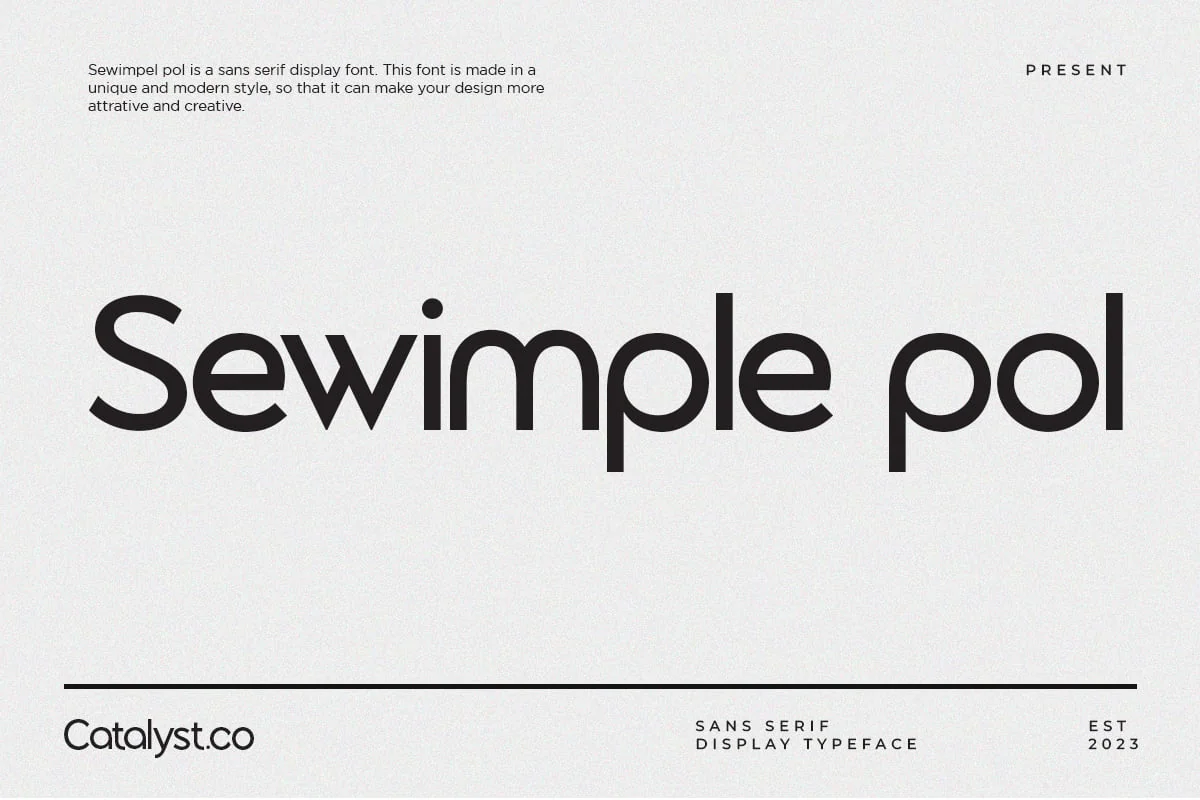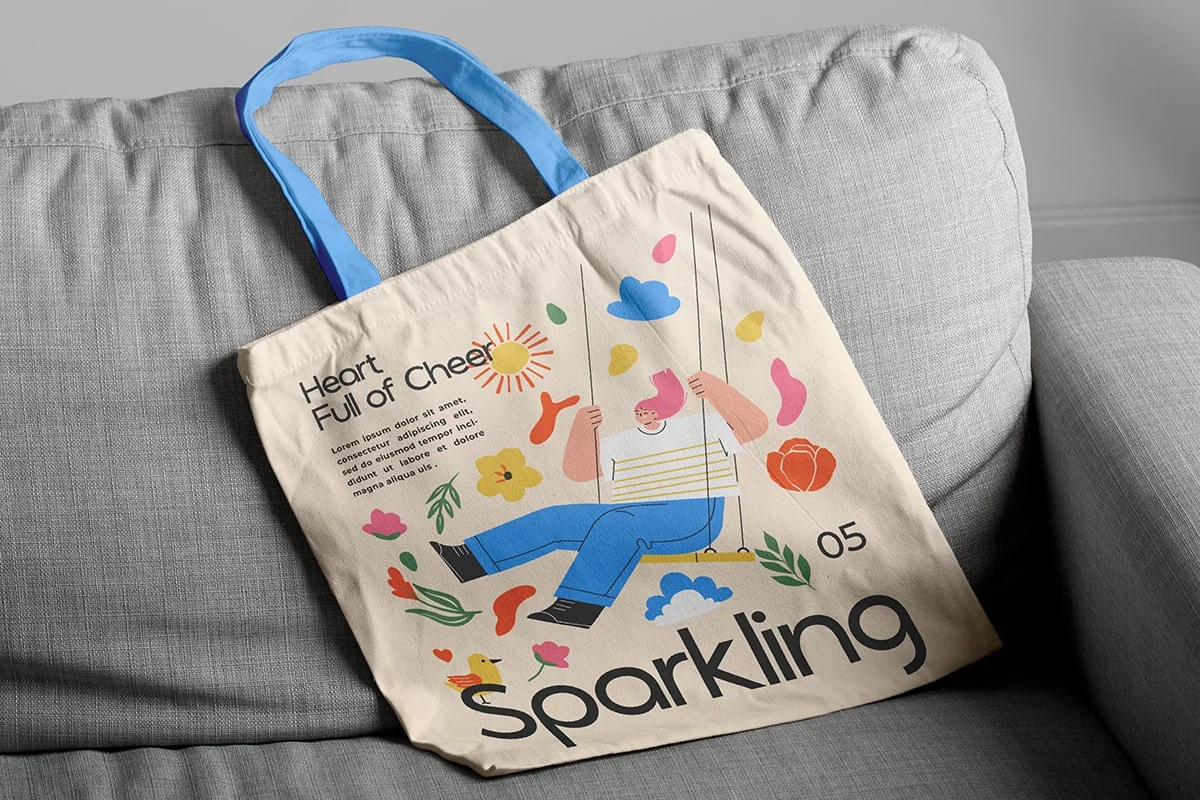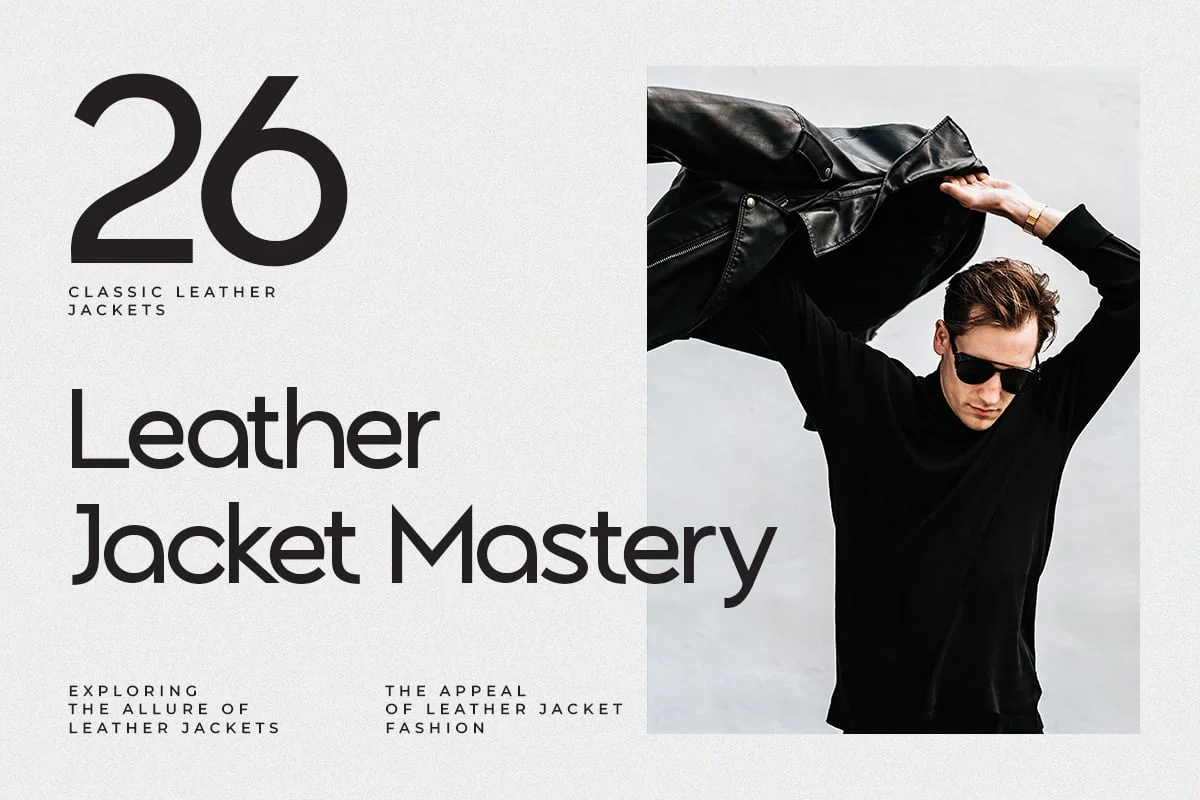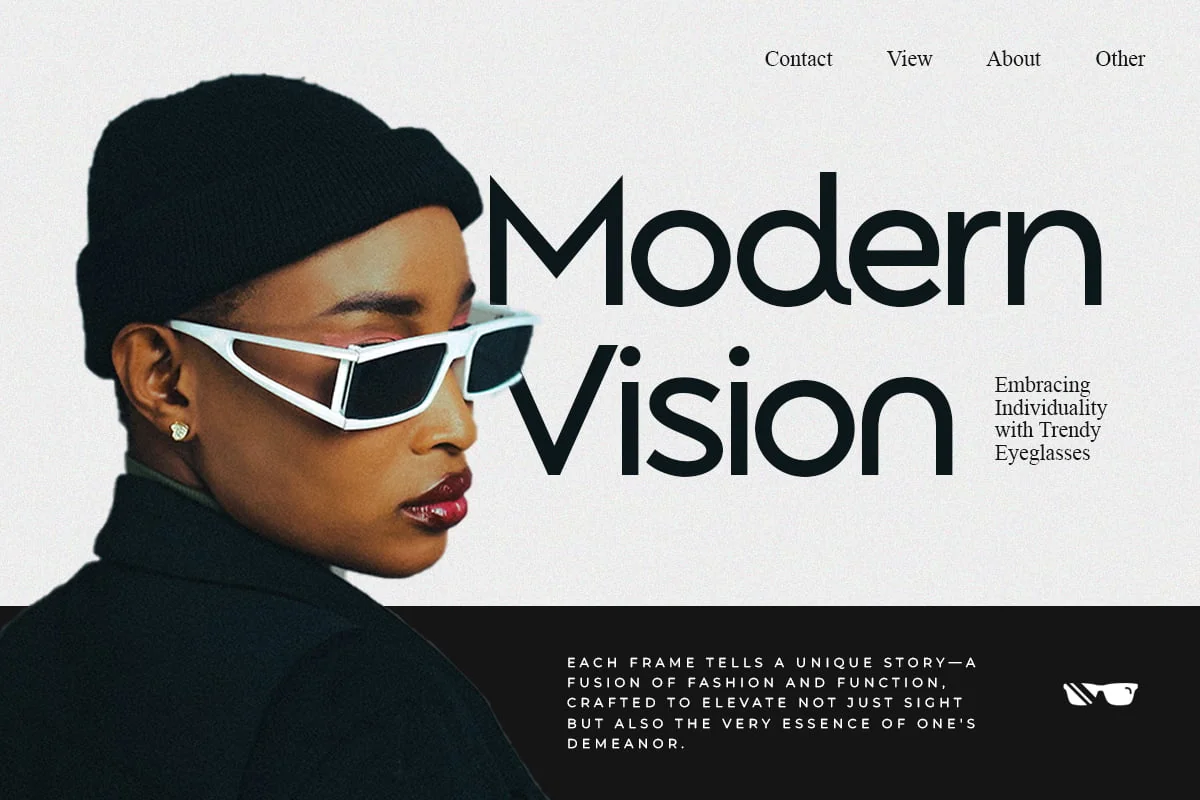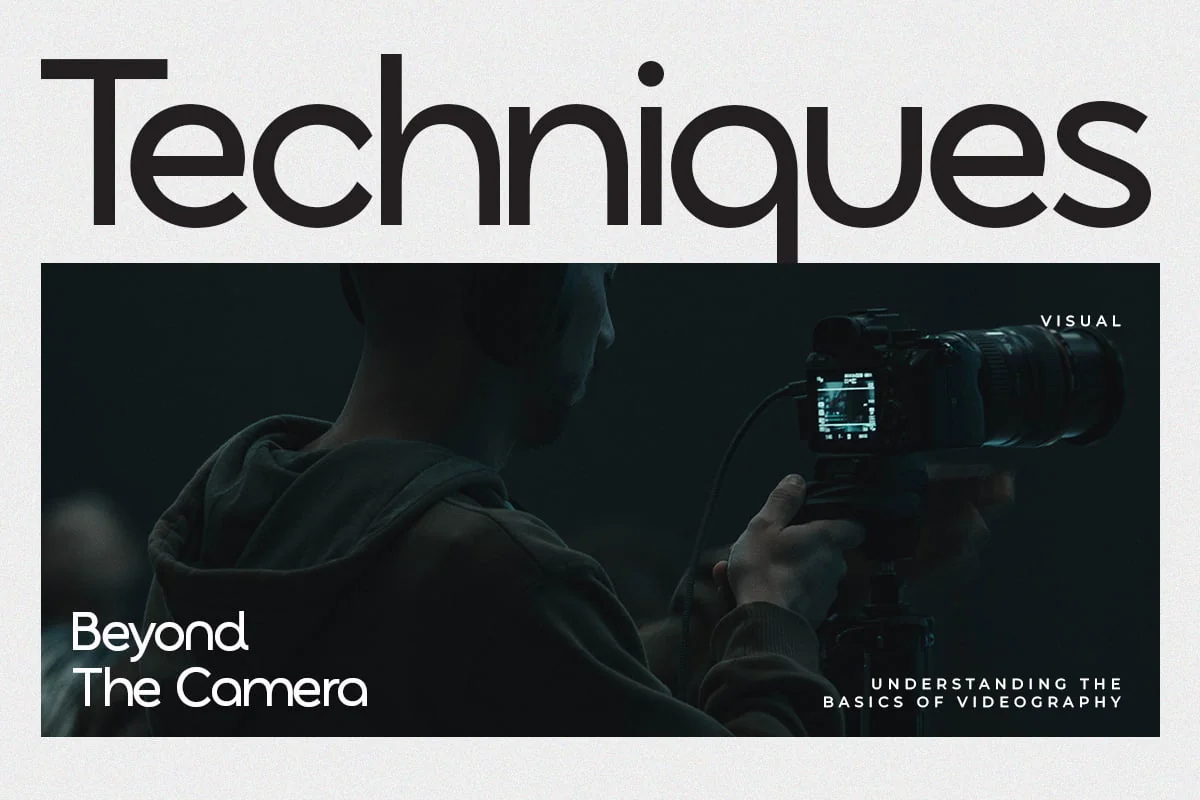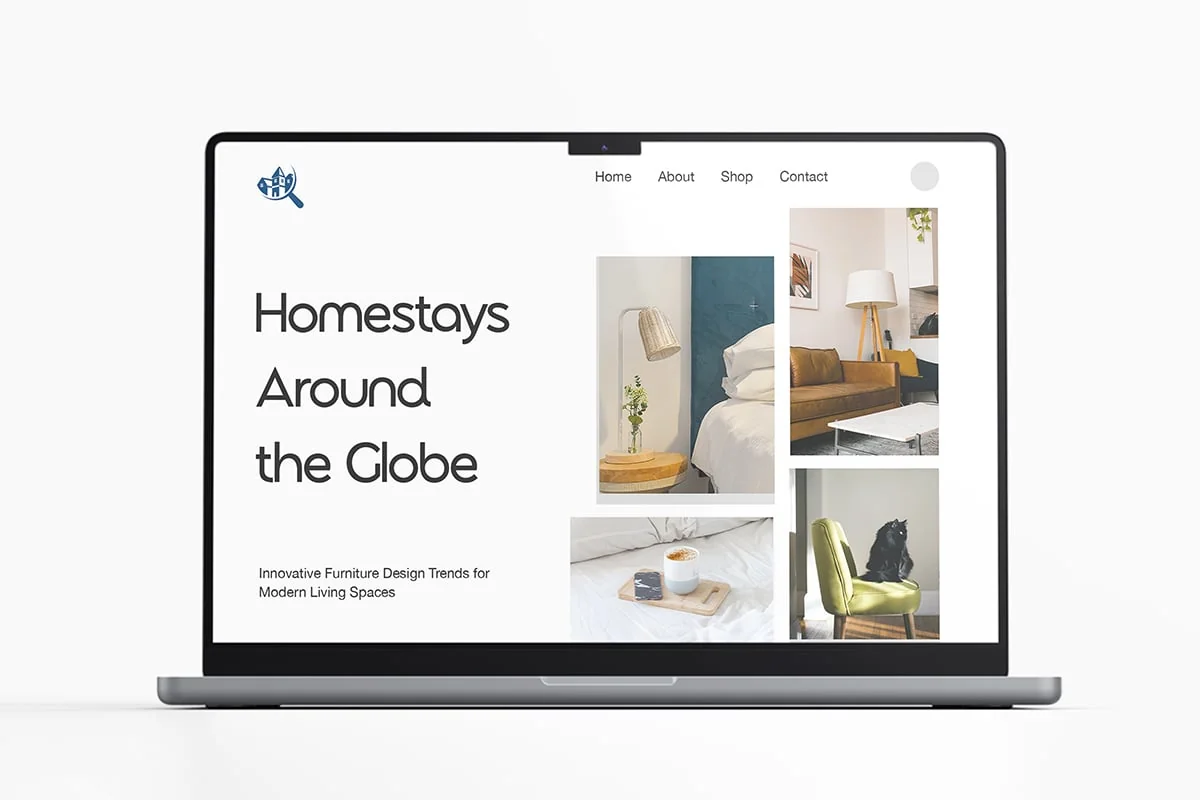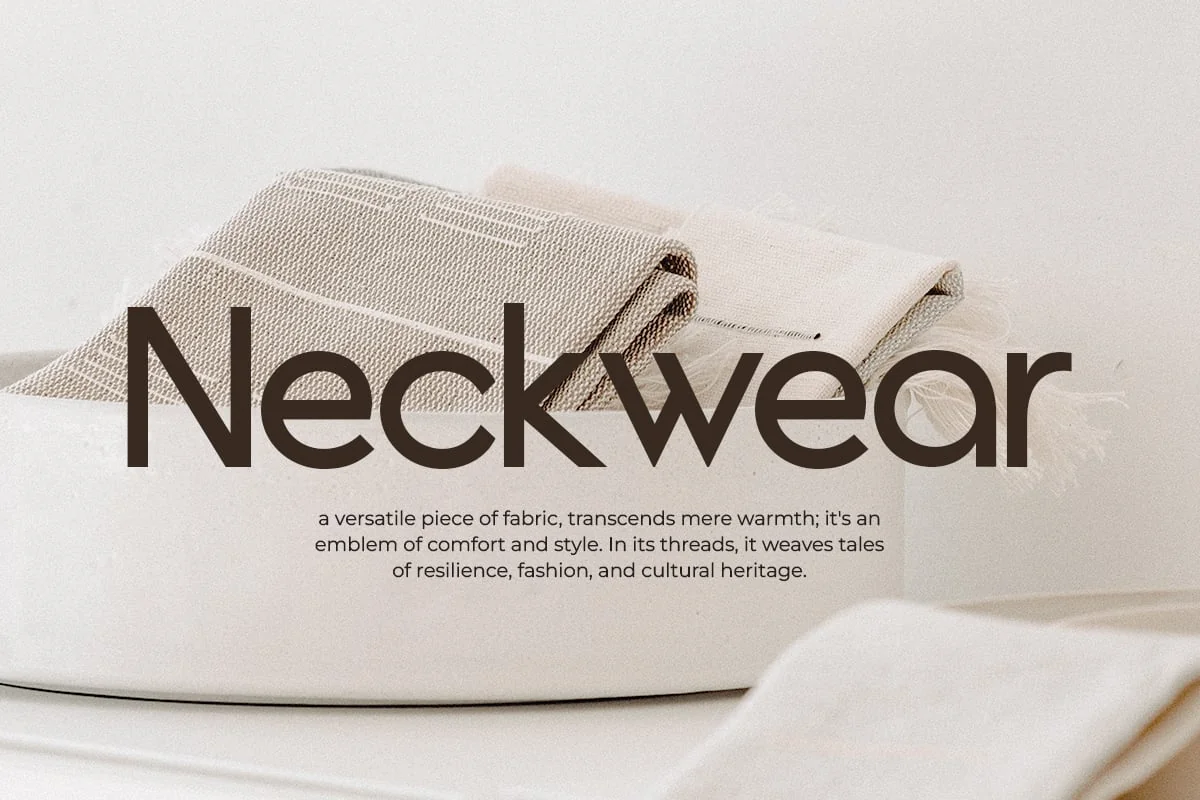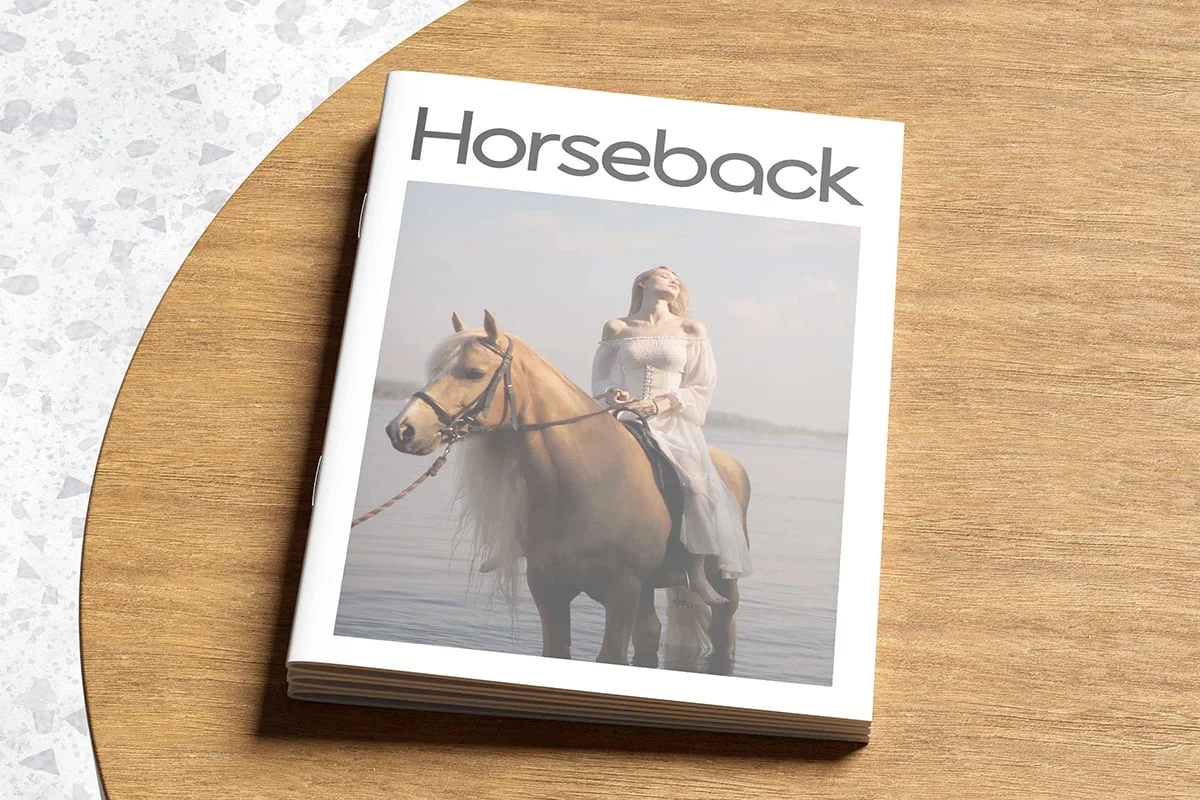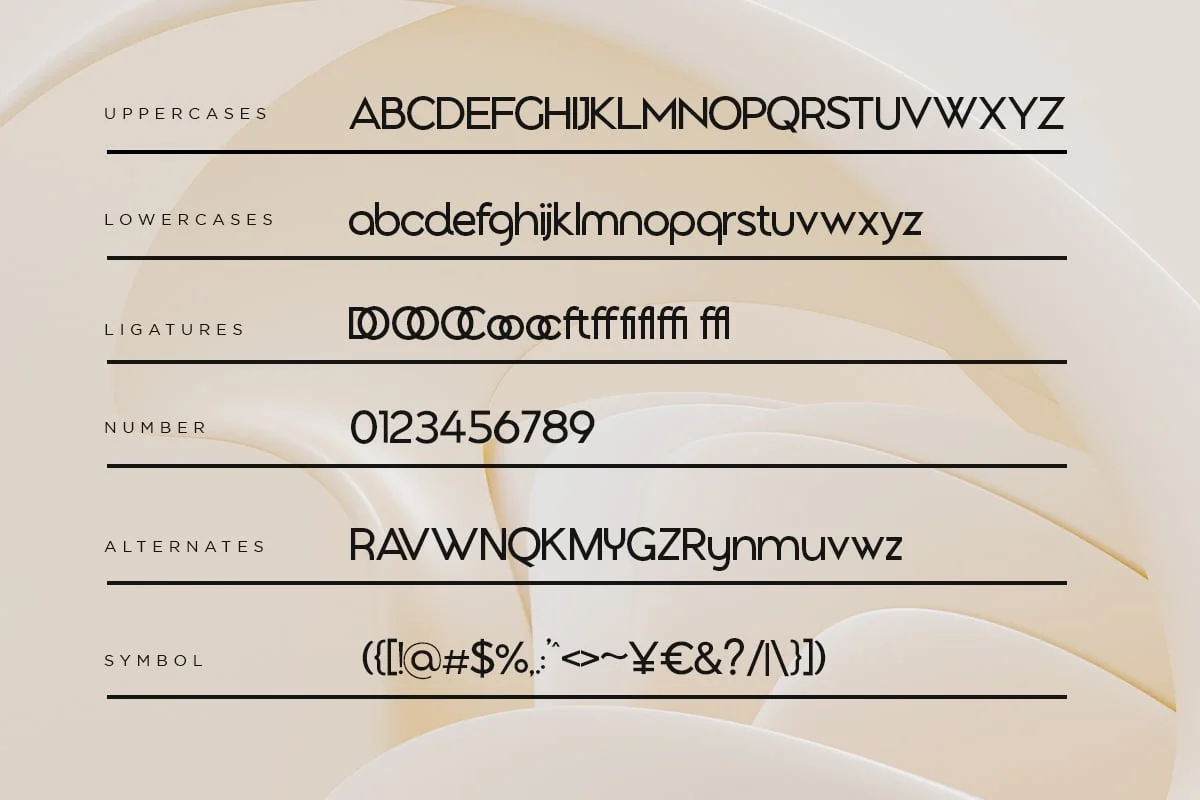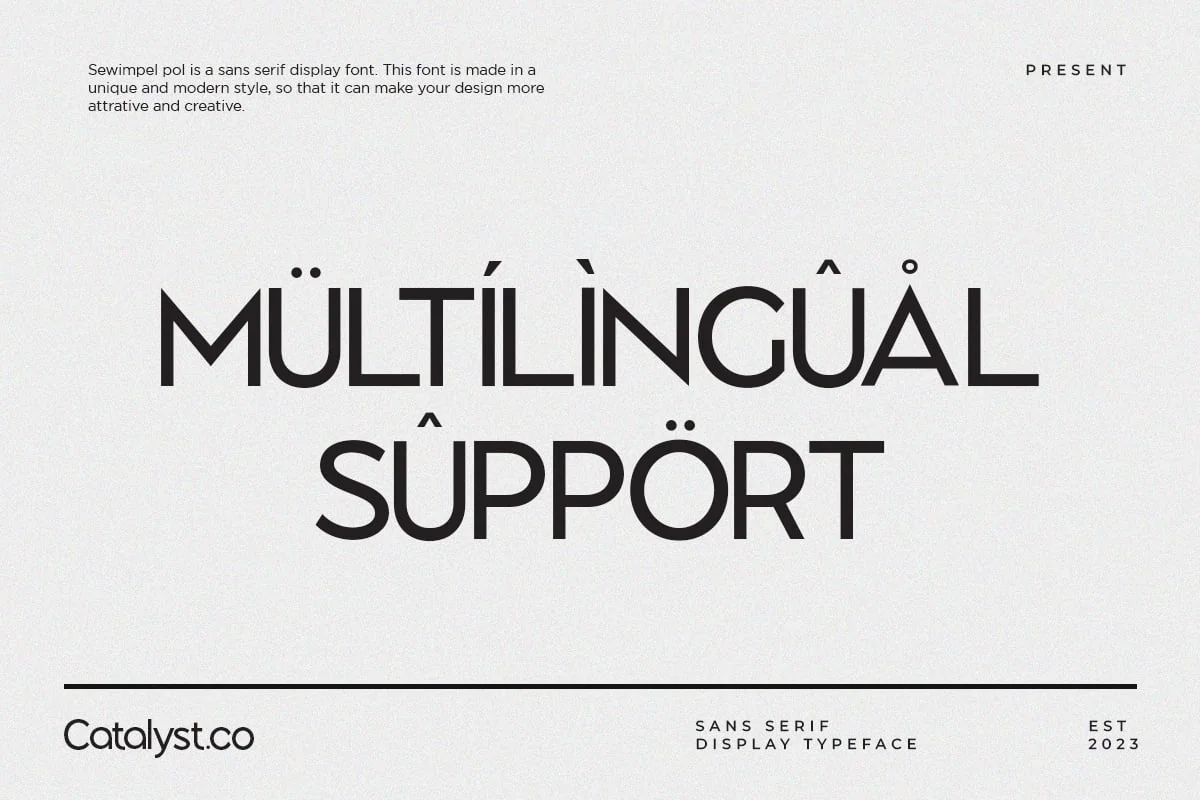
Sewimple Pol Sans Serif Display Font
Sewimple Pol Sans Serif Display Font typeface excellent used for the manufacture quote text, logotype, header magazine, and many more.
- Ligatures & Alternate
- Numeral & Punctuations